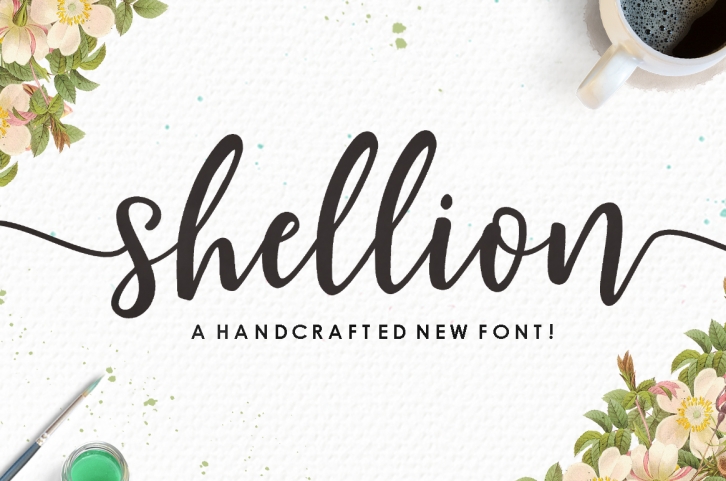
Shellion Script is a great font that was designed by Youngtype. Imagine the amount of combinations you can create using this font! The archive is 15.71 MB and it was released on January 14, 2018. Shellion Script looks beautiful on wedding invitations, greeting cards, logos, posters, labels, t-shirt designs, logos, business cards and is perfect for use in ink or watercolor works, fashion, magazines, packaging and food menus, children's books and more!